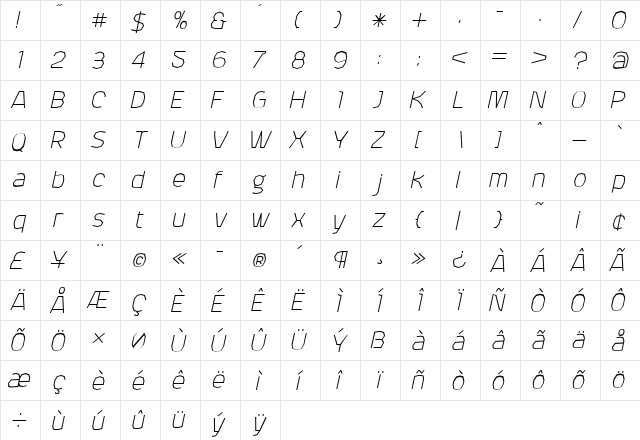
Attac Italic
Design Context for Attac Typeface
Attac takes a measured approach to typography — its balanced proportions and neutral character make it a reliable workhorse for both digital and print work. Its italic angle brings a sense of urgency and motion to the letterforms.
Pro Tip: Use Attac for emphasis, pull quotes, and subheadings where its slanted energy can add rhythm to the layout.